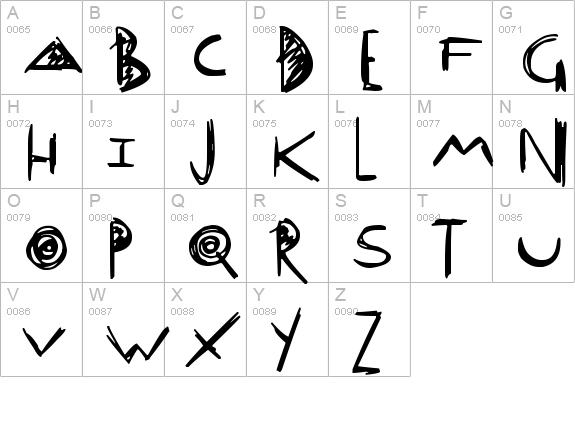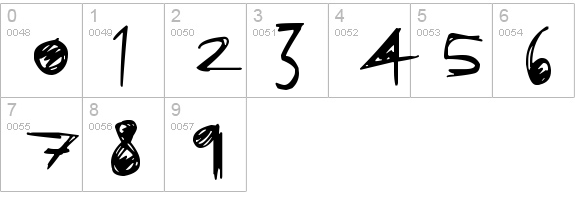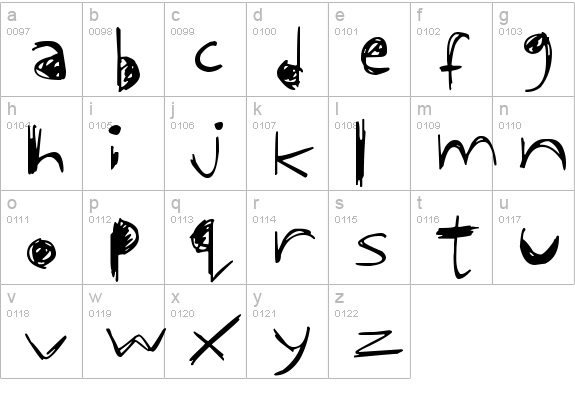
Off Kilter Font Details
Off Kilter is a free for personal use font in the Script category, designed by Darrell Flood. It has been downloaded 73 times and is available for Windows, Mac and Linux.
Off Kilter font is a unique and eye-catching typeface that adds a touch of whimsy and playfulness to any design project. With its slightly uneven and off-center letterforms, this font exudes a sense of fun and creativity. The irregular angles and quirky shapes give Off Kilter a distinct and charming look that is perfect for projects that require a touch of personality.